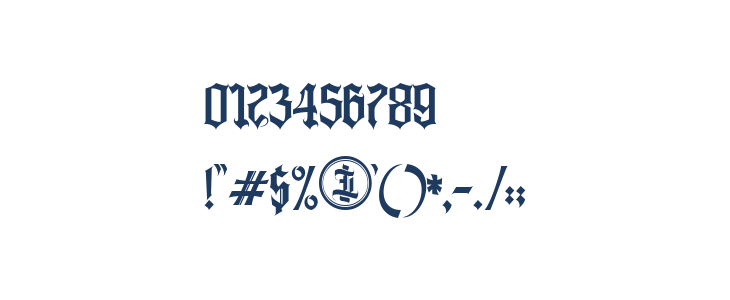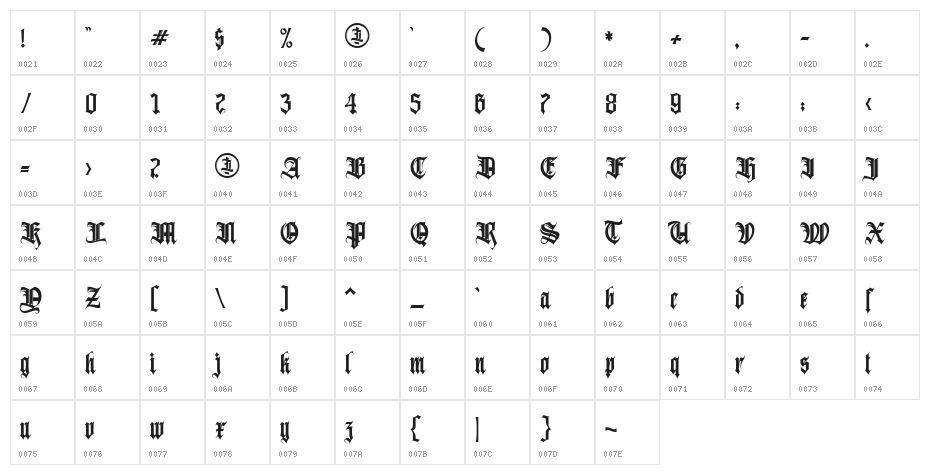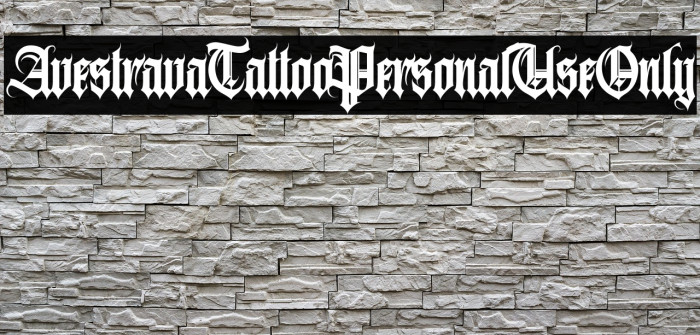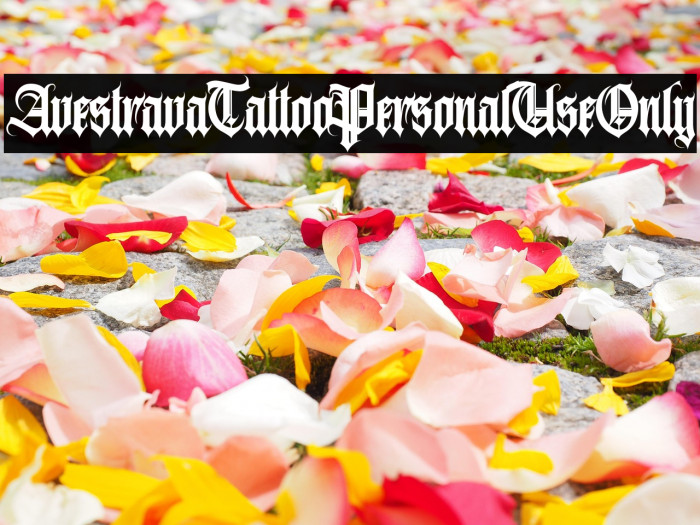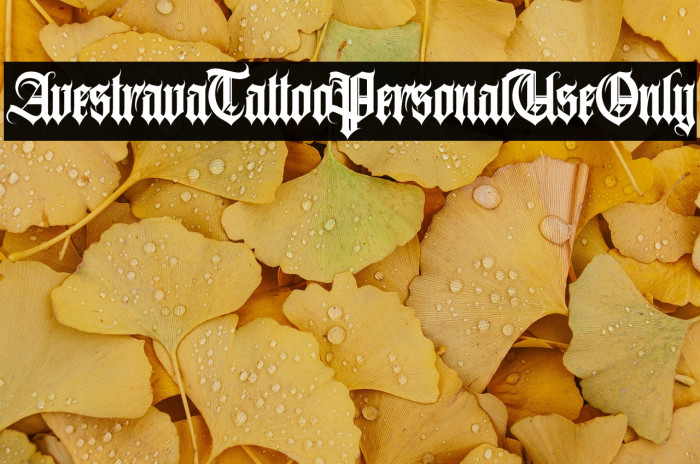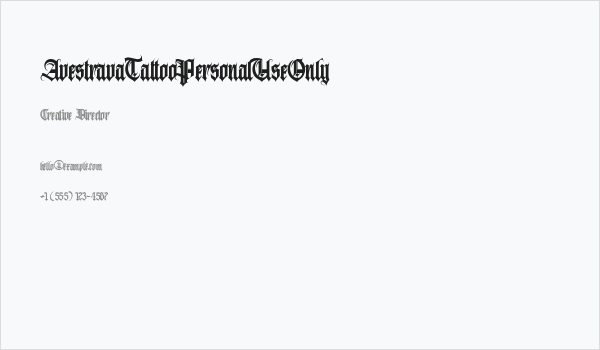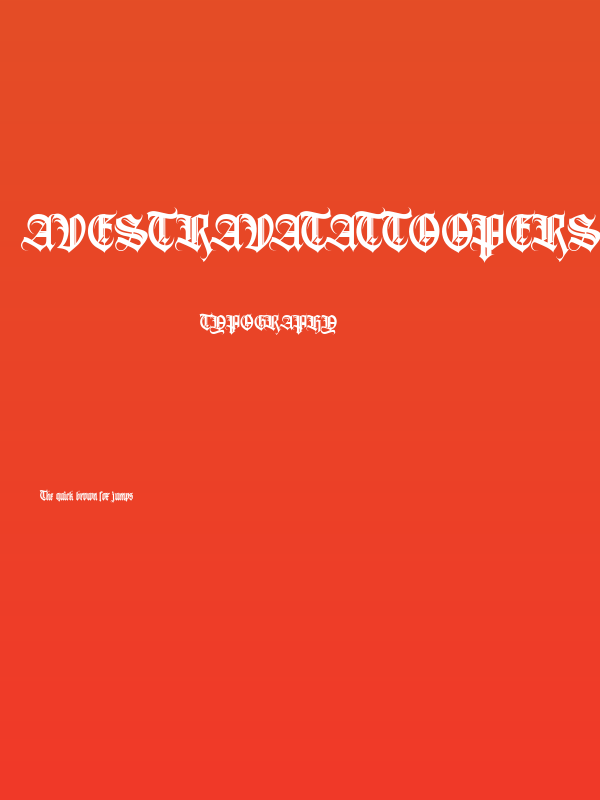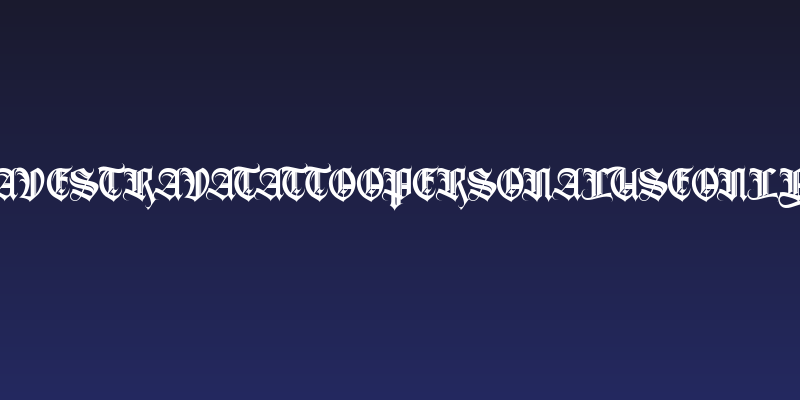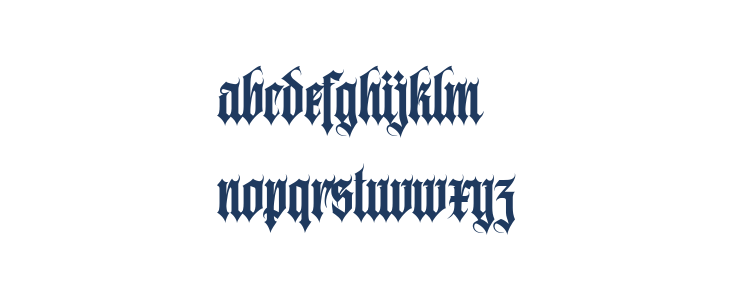
AvestravaTattooPersonalUseOnly Font
AvestravaTattooPersonalUseOnly Description
This font exhibits a classic Blackletter style, characterized by its intricate and ornate design. The letters are bold and angular, with sharp, pointed serifs and elaborate flourishes that give it a dramatic and historical appearance. The uppercase letters are particularly elaborate, featuring additional decorative elements that enhance their visual impact. The lowercase letters maintain the same stylistic elements but are slightly more restrained, ensuring readability. The numerals and special characters are consistent with the overall style, adding to the cohesive look of the font. This typeface evokes a sense of tradition and formality, often associated with medieval manuscripts and Gothic architecture.
| Proposed Projects | Ideal for tattoo designs, historical documents, certificates, and decorative posters. |